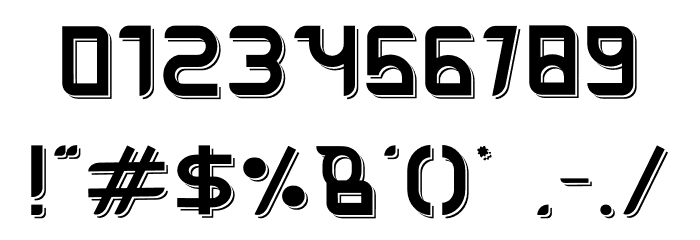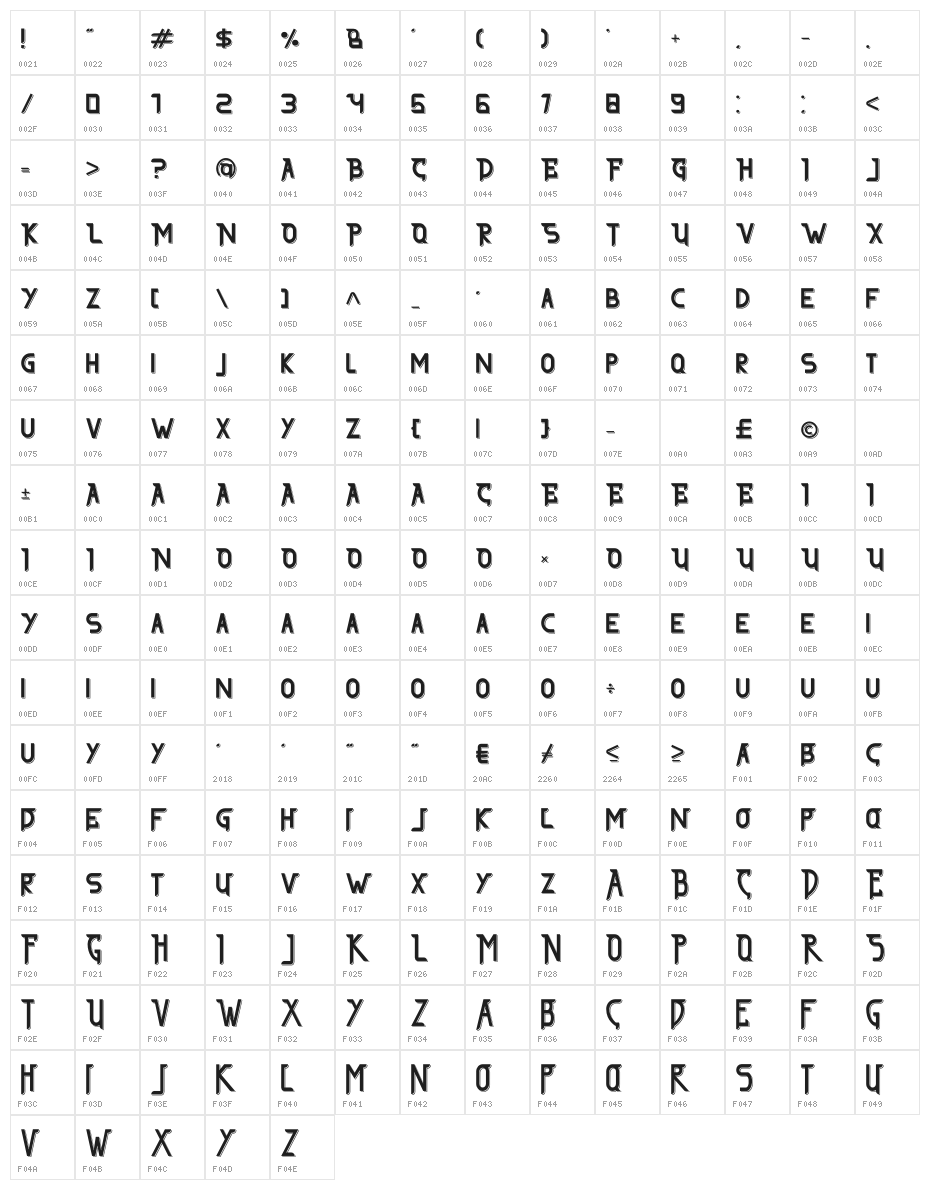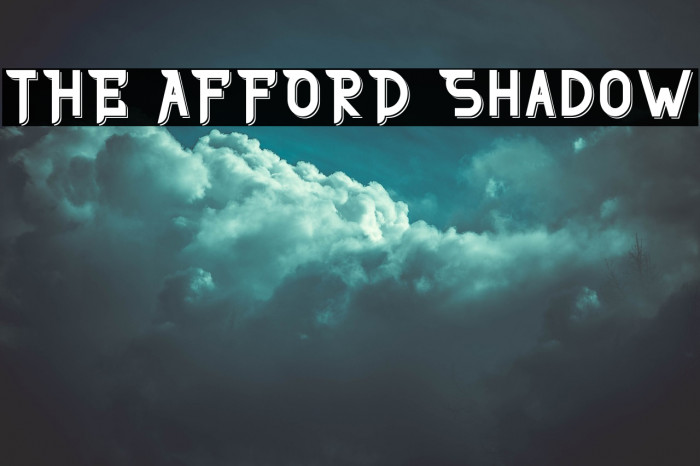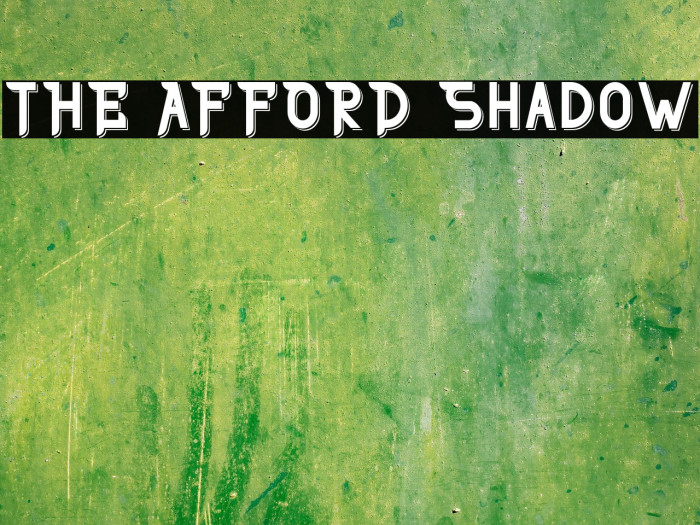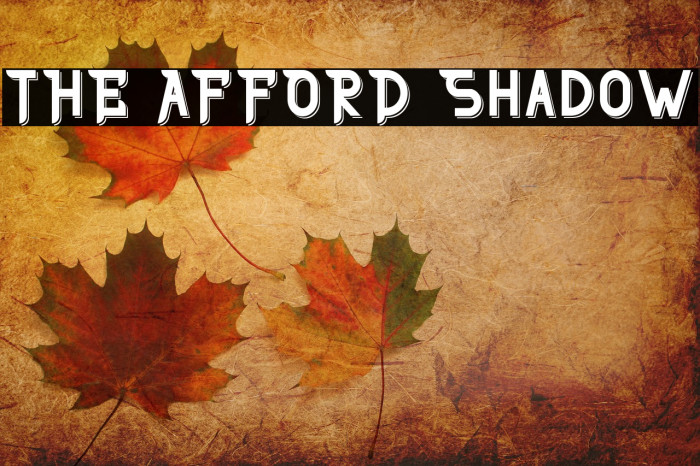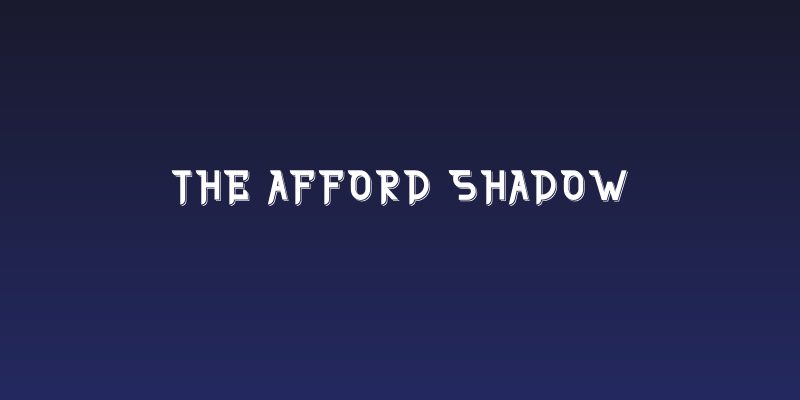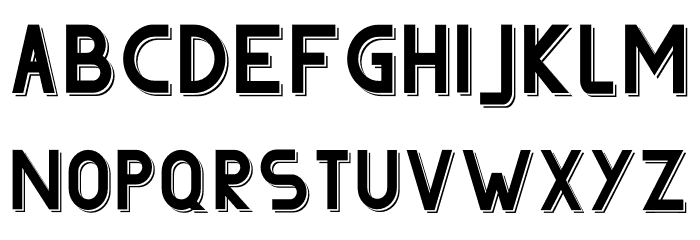
THE AFFORD Shadow Font
THE AFFORD Shadow Description
This font features a bold and dynamic design with a distinct shadow effect that gives it a three-dimensional appearance. The uppercase letters are angular and geometric, with sharp edges and a strong presence. The shadowing adds depth and a sense of movement, making it ideal for eye-catching designs. The numerals and special characters maintain the same bold style, ensuring consistency across all text elements. This font is perfect for projects that require a modern and impactful look, such as posters, headlines, and branding materials.